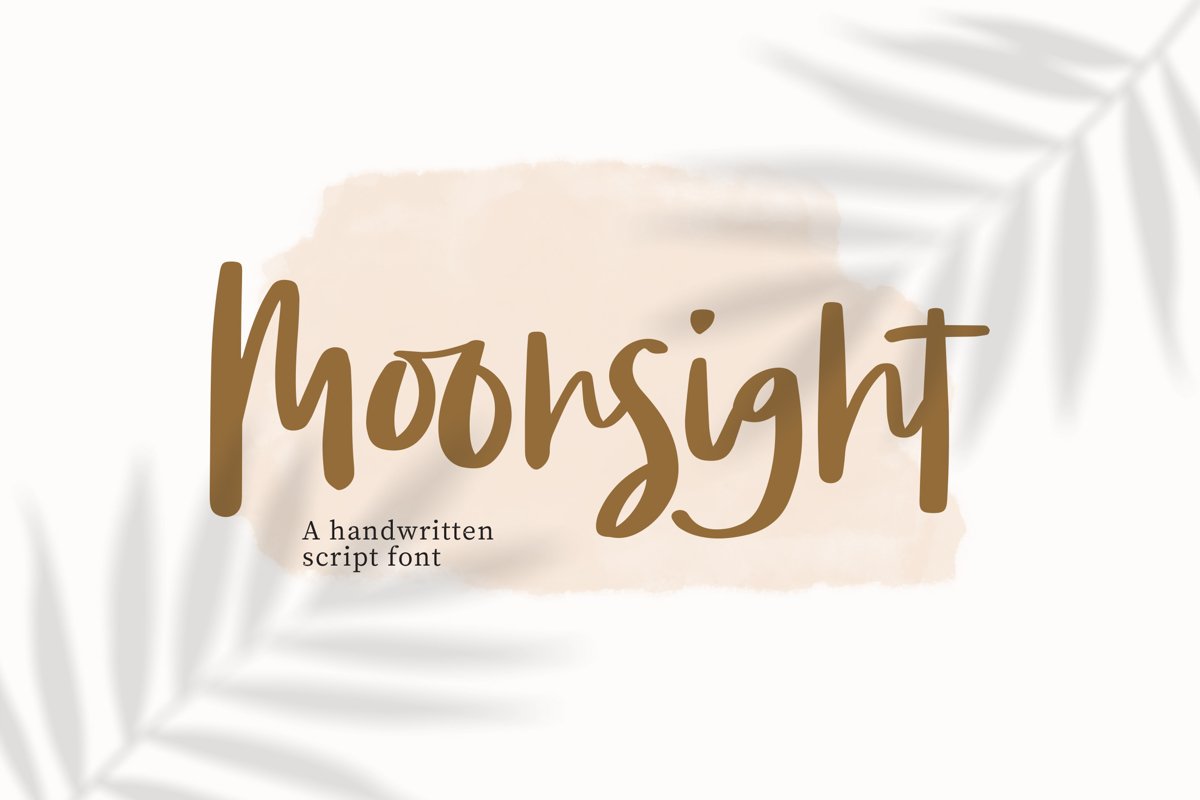
Moonsight - Script Font
Moonsight- Script Font that contain lowercase, uppercase, symbol, and also support multi language. There’s a lot ligatures in this font. This Font also comes with ligatures, alternates and many more. this font suitable for fashion, branding, catalog and other design what you want.